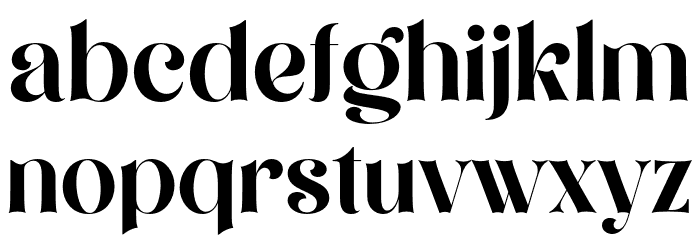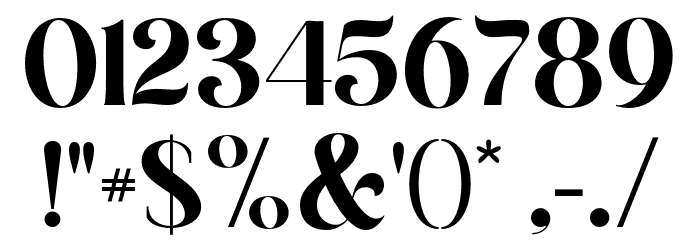
MillionDreams-Regular Font
This font features a unique blend of modern and vintage styles, characterized by its bold, high-contrast strokes and elegant curves. The uppercase letters exhibit a strong presence with their sharp serifs and distinct shapes, while the lowercase letters maintain a harmonious flow with subtle variations in stroke width. The numerals are equally striking, with a consistent design that complements the alphabet. Special characters are thoughtfully crafted, adding to the font's versatility. Overall, this typeface exudes a sense of sophistication and creativity, making it suitable for a wide range of design applications.
A bold, high-contrast font with a modern-vintage style and elegant curves.
- Font: MillionDreams-Regular
- Proposed Projects: Ideal for branding, editorial design, posters, and luxury product packaging.
- Category: Serif
- Overall Style: Modern Vintage
- Use Case: Headlines, Logos, Editorial Design